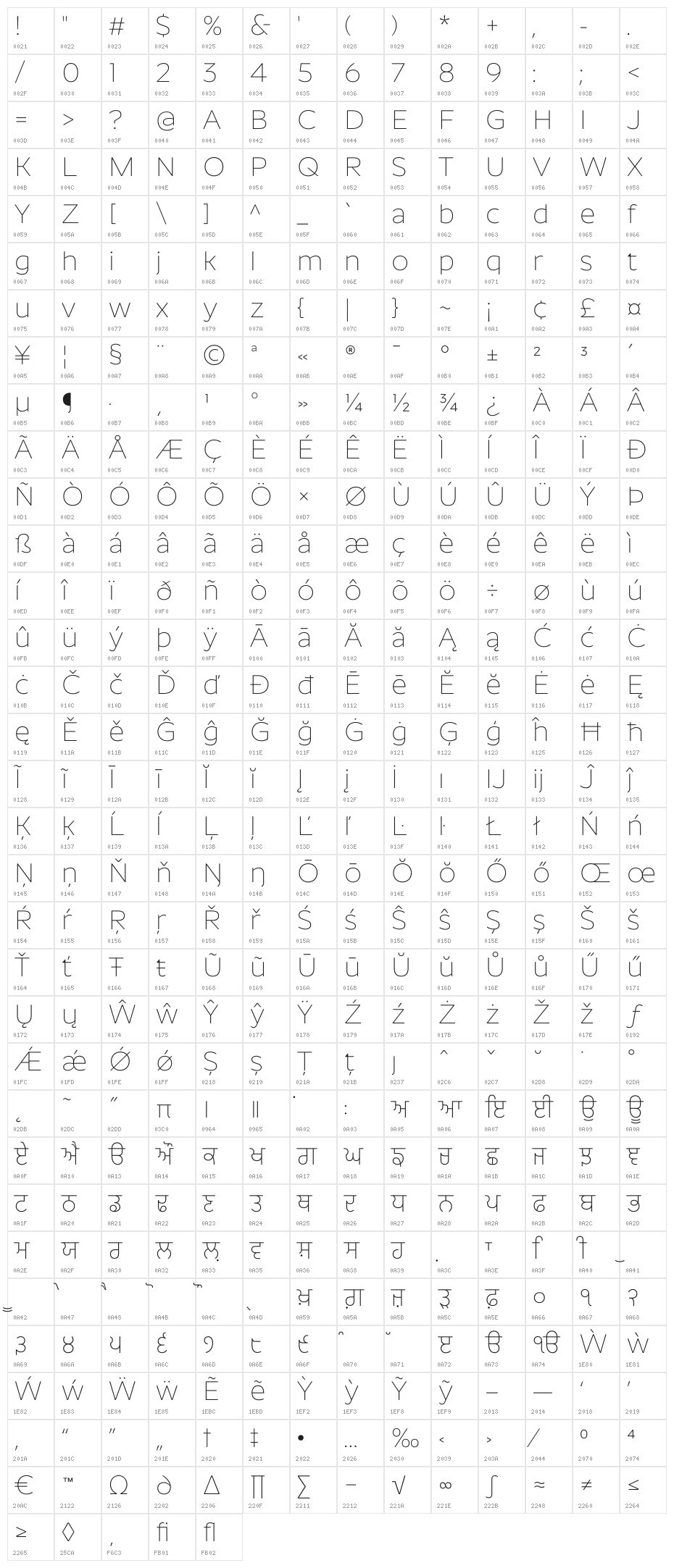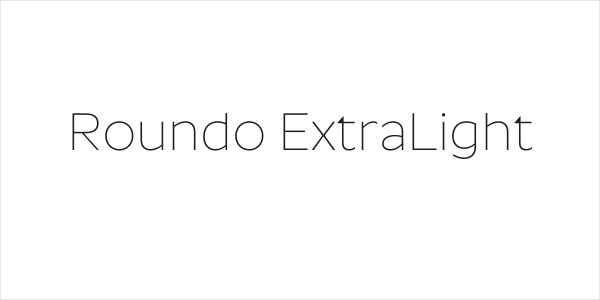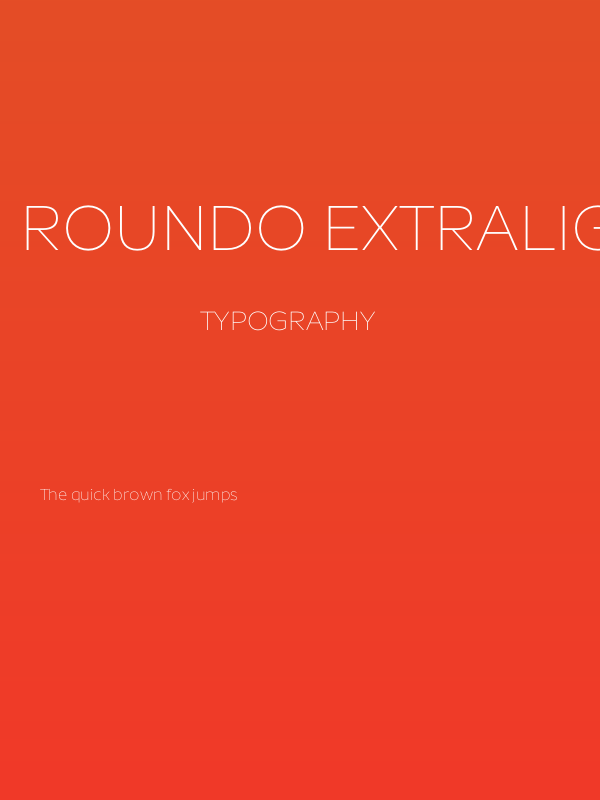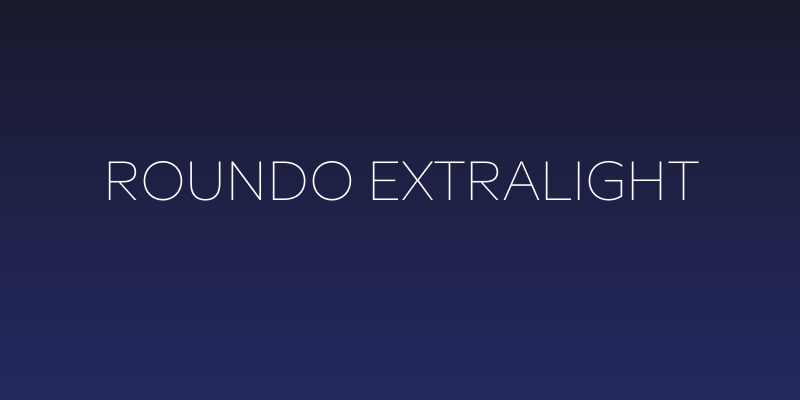
Roundo ExtraLight Font
Roundo ExtraLight Description
This font features a clean and minimalist design with a geometric structure. The characters are crafted with precision, showcasing a uniform stroke width that contributes to its extra light appearance. The rounded edges give it a friendly and approachable feel, making it suitable for modern and contemporary designs. The uppercase and lowercase letters maintain a consistent style, ensuring readability and elegance. The numerals and special characters are designed to complement the overall aesthetic, providing a cohesive look across all elements.
Proposed ProjectsIdeal for modern branding, tech startups, minimalist posters, and digital interfaces.